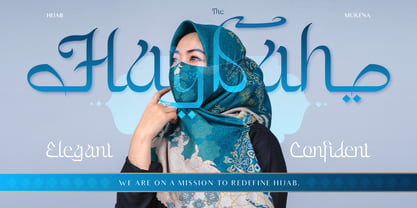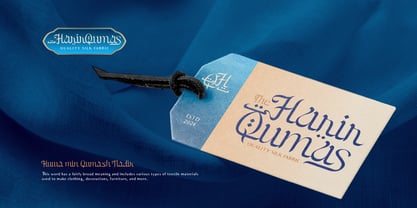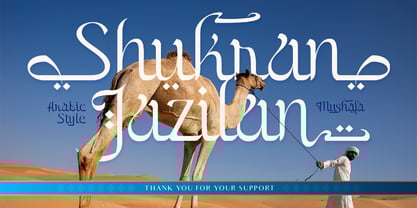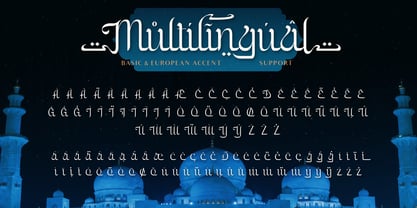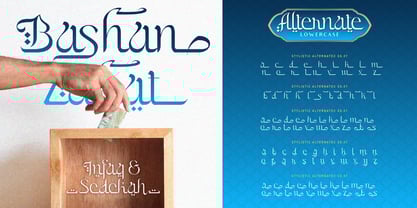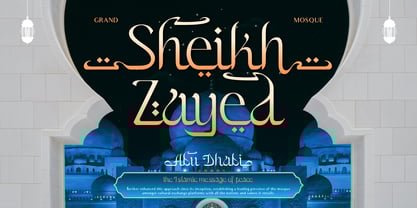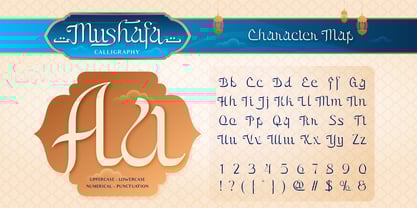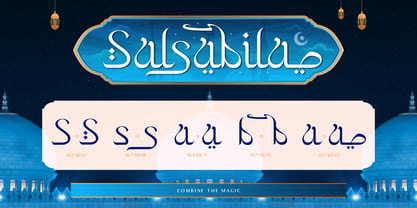
Mushafa
by Burntilldead
The Mushafa Font Family was designed by Eric Kurniawan and published by Burntilldead. Mushafa contains 2 styles and family package options.
Introducing Mushafa, a stunning font that captures the beauty of Arabic calligraphy with touch of elegant and modern. Inspired by the intricate art of arabic writing, this font features graceful curves, delicate flourishes, and smooth slow. Included with alternates, it added cultural richness to the font. Mushafa comes in two styles: regular and outline. The multilingual support makes this font suitable for global use. Perfect for logos, invitations, social media graphics, posters, editorial design, product tags, and any design project that needs an Arabic or Islamic touch.
Features:
• A - Z set (Uppercase & Lowercase)
• Number
• Punctuation
• Alternates
• Multilingual
• Mushafa Characters Map